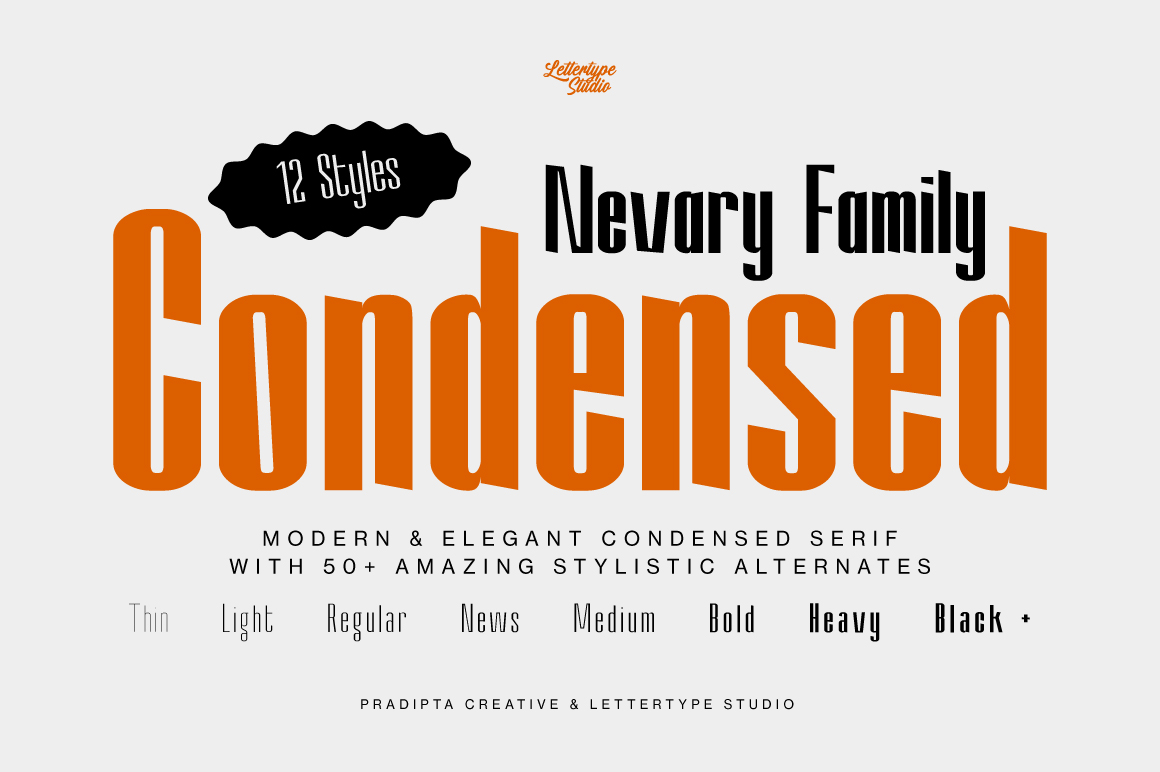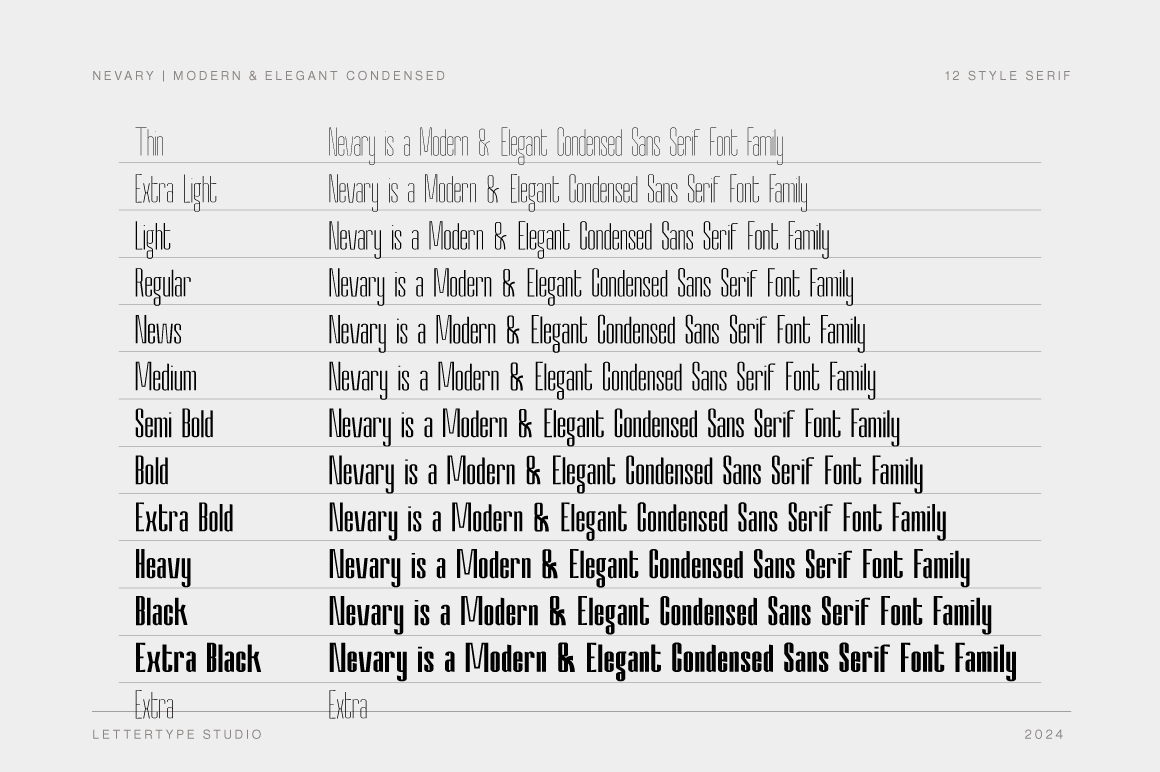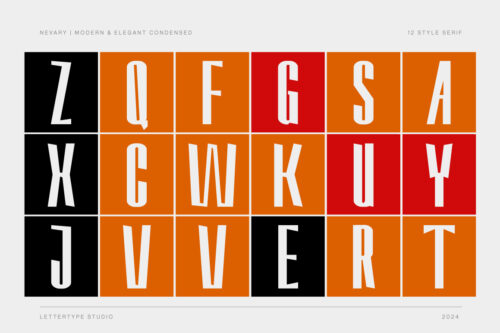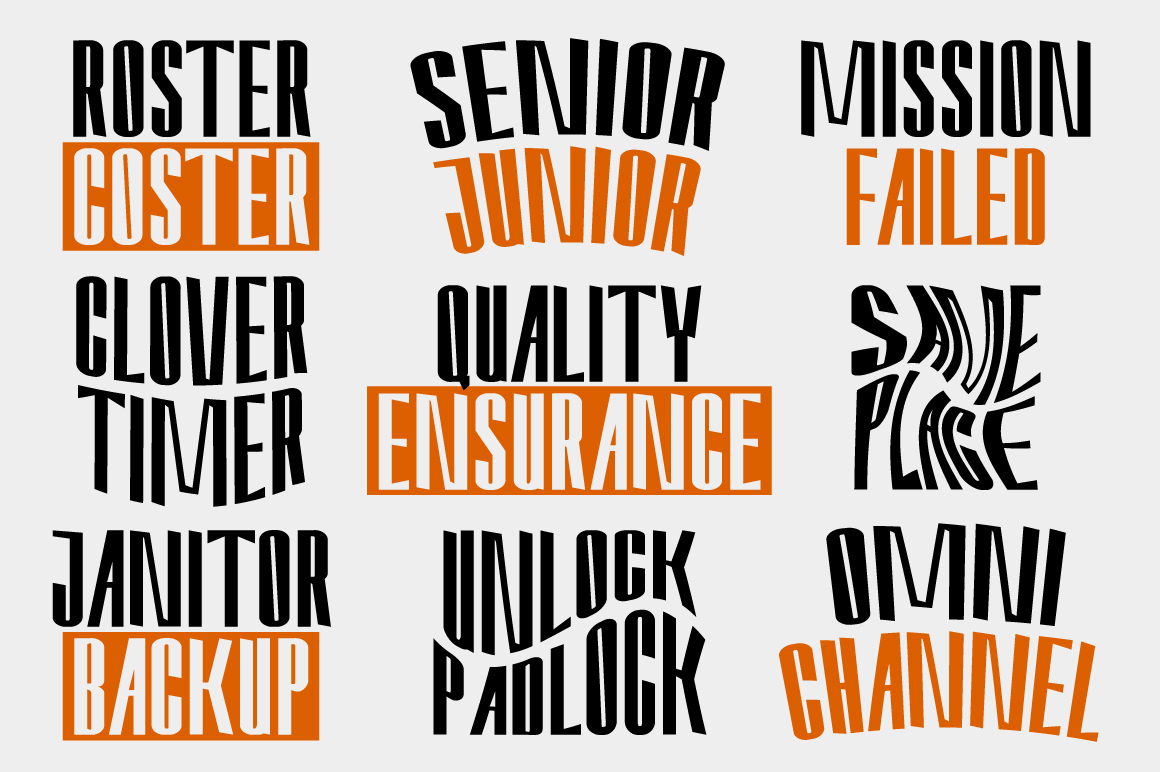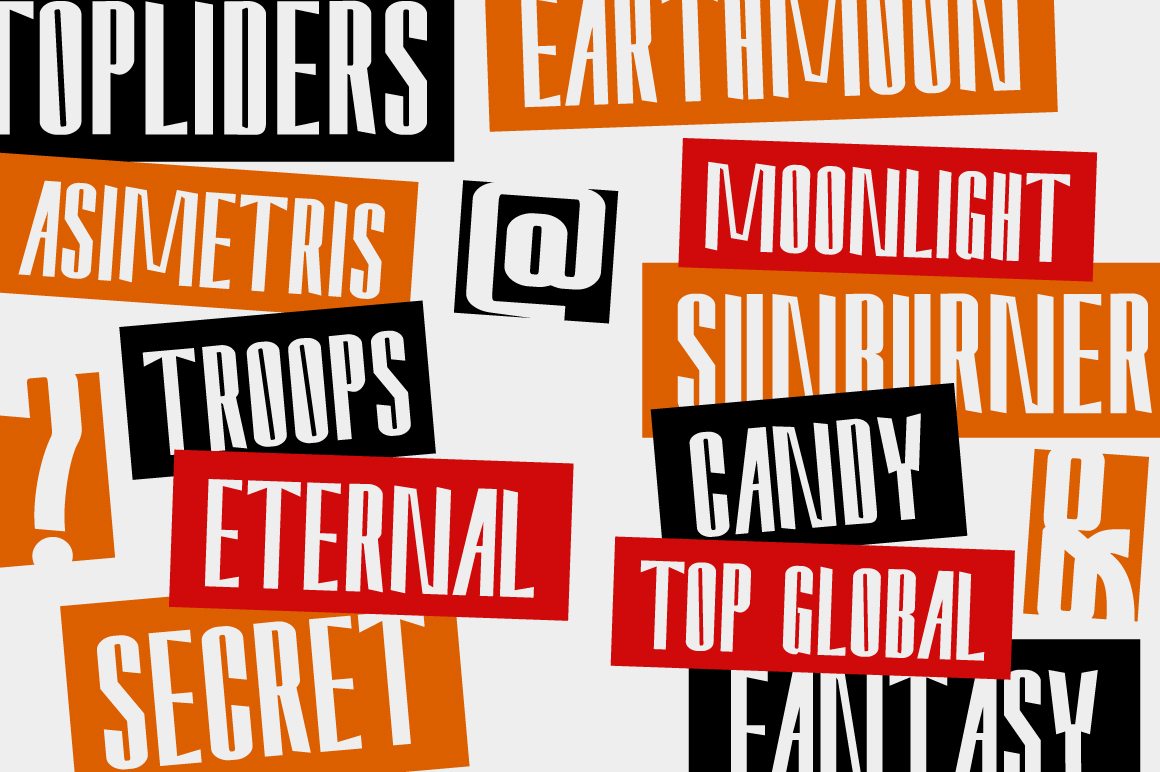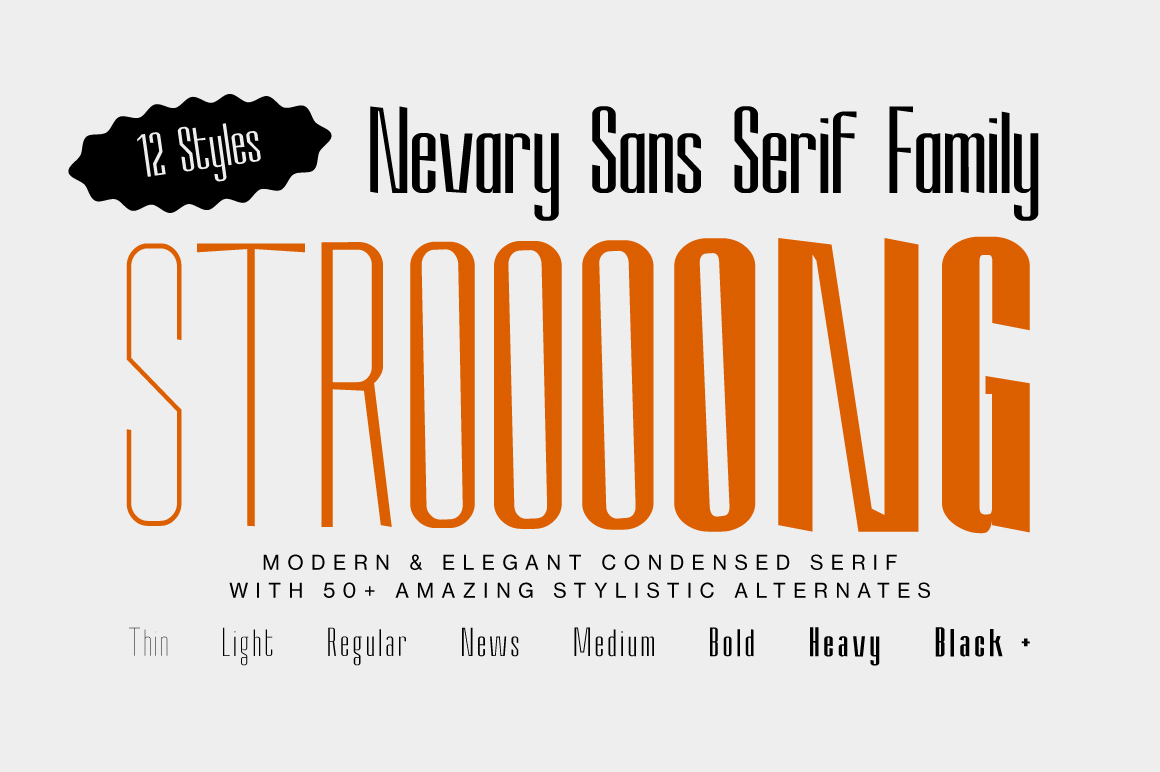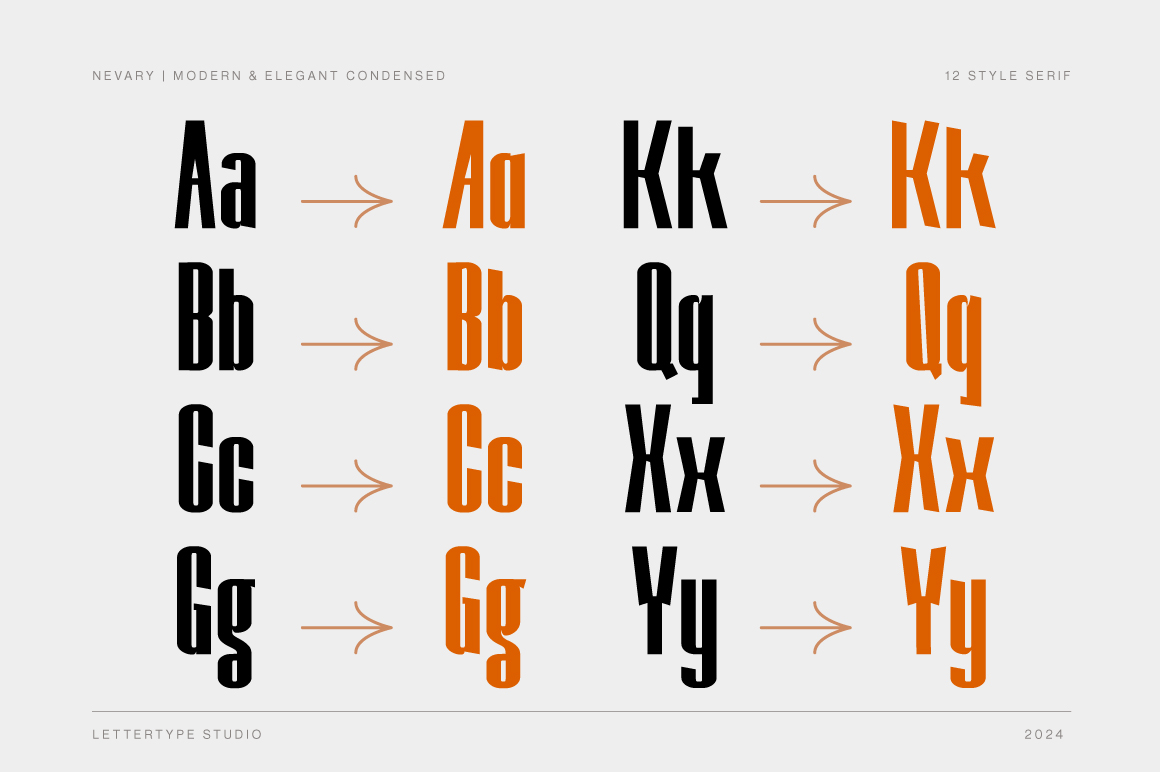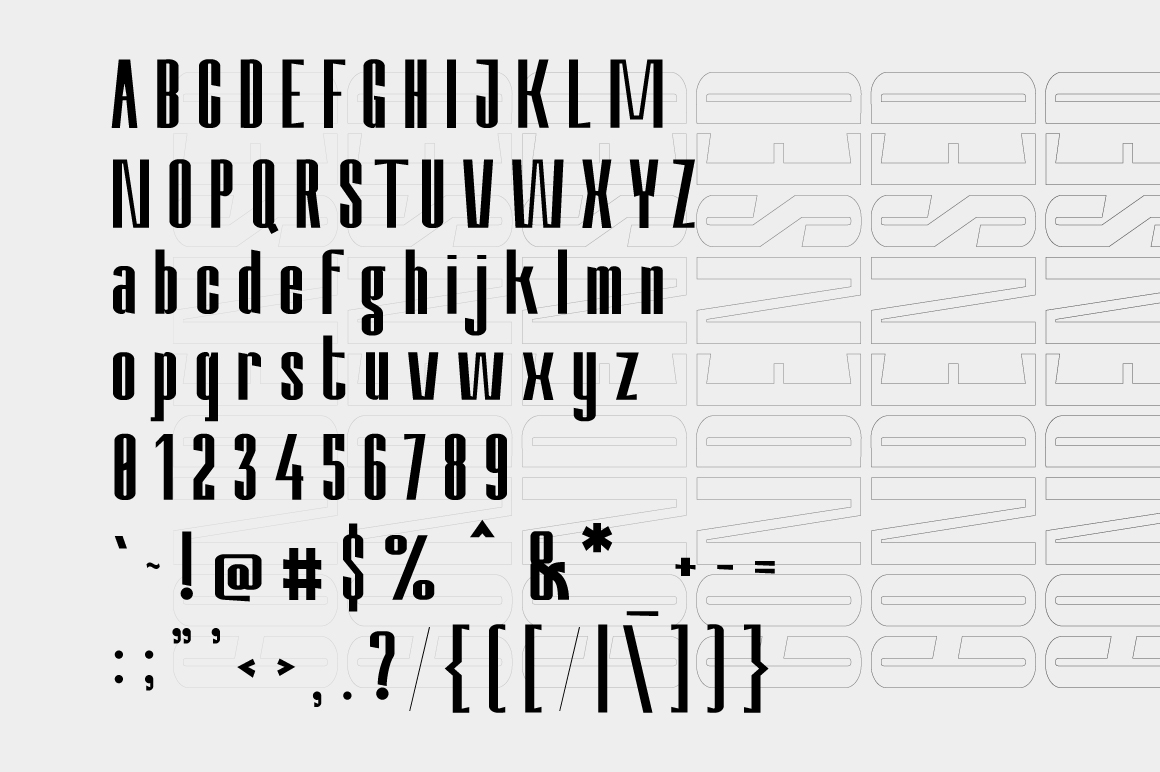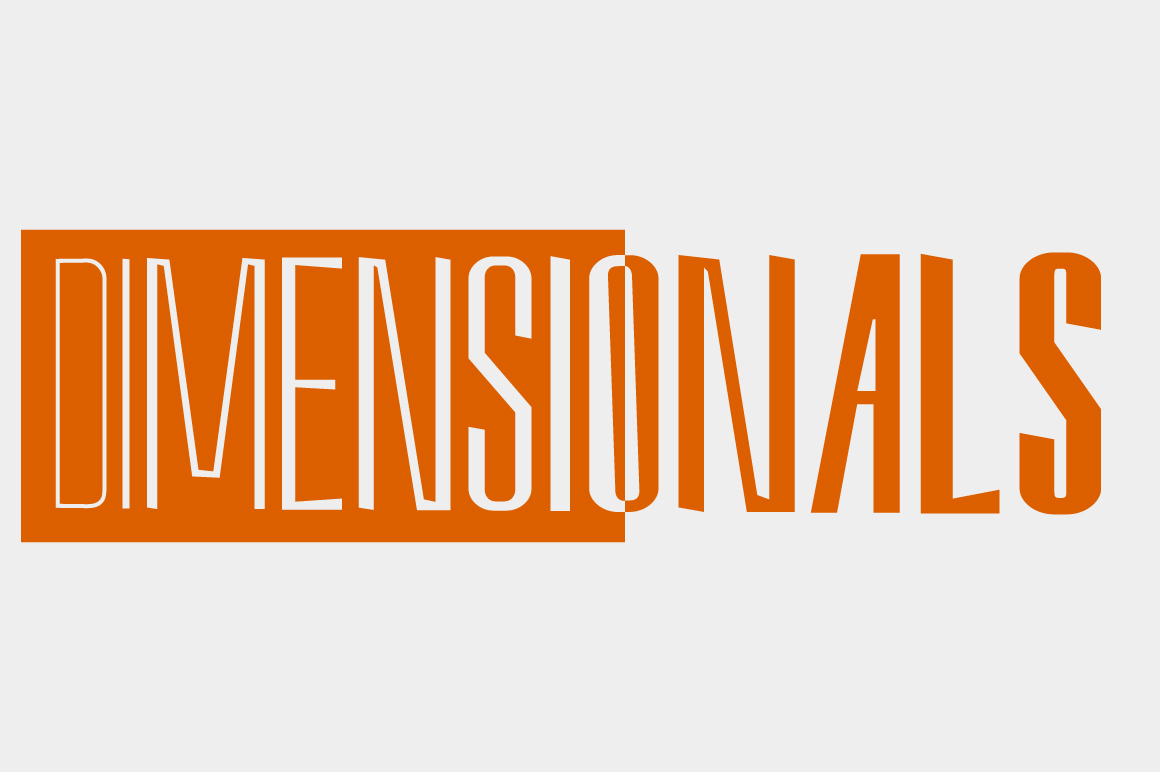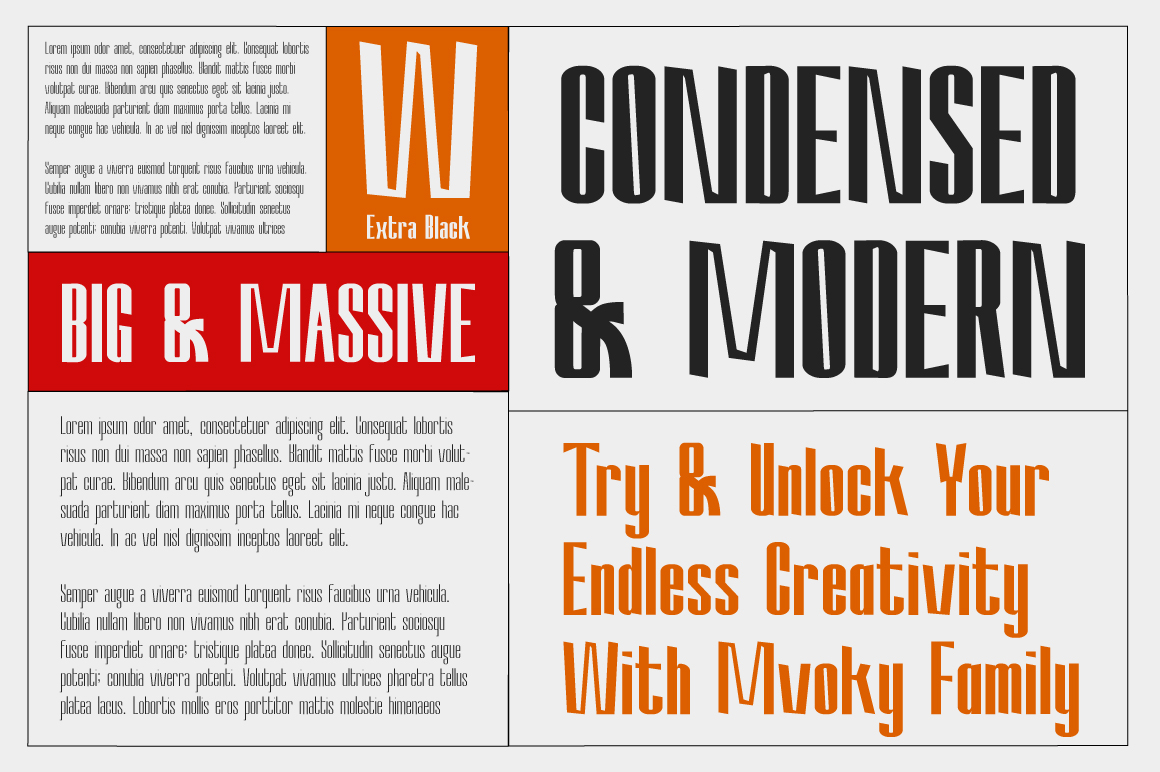
Nevary is an elegant condensed sans serif font family that blends modern design with timeless sophistication. With its clean lines, tall proportions, and 12 distinct styles from Thin to Extra Black, it’s perfect for high-impact headlines, editorials, and contemporary branding.
Featuring over 50 alternates and multilingual support, Nevary provides versatility and precision for designers seeking balance between elegance and boldness. Whether for digital layouts or print design, it delivers clarity, power, and refinement in every letterform.
Nevary Features:
• Lowercase & Uppercase
• Numerals & Punctuation
• Alternates & Ligature
• Multilingual Support
• Font Family (12 Styles, thin to extra black)